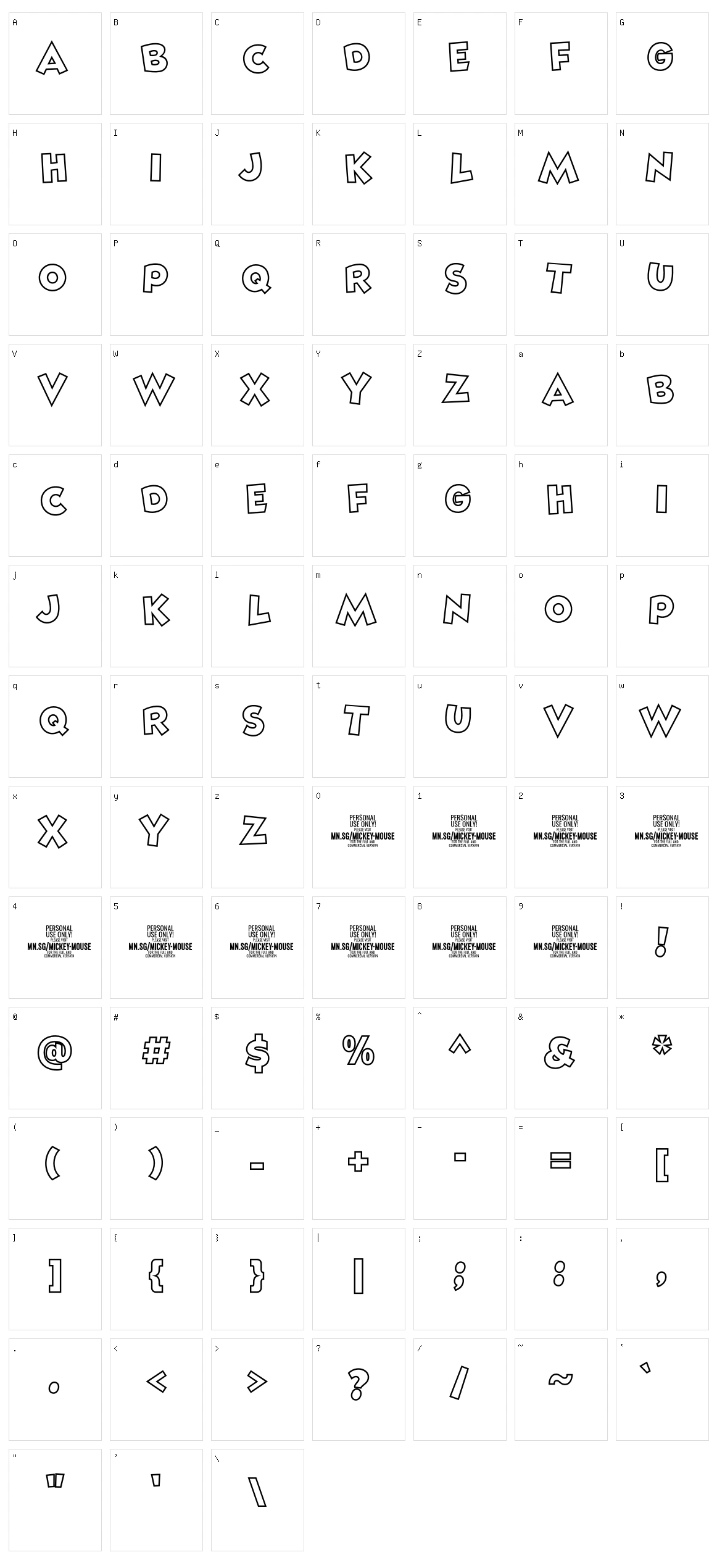
Mickey Mouse is a delightful blend of humor and optimism, designed to capture the essence of classic cartoons.
Make sure to activate contextual alternates in your design software to make the letters overlap!
Mickey Mouse's sans-serif characters are quirky and funny, embodying the unpredictable nature of comic strips and animated adventures. The font's happy vibe is contagious, making it ideal for designs that aim to spread cheer.
The font is built with advanced OpenType functionality and guaranteed top-notch quality, containing stylistic and contextual alternates, ligatures and more automatic and manual features; all to give you full control and customizability.
It has extensive lingual support, covering all Latin-based languages, from North Europa to South Africa, from America to South-East Asia. It contains all characters and symbols you'll ever need, including all punctuation and numbers.
Designed by Mans Greback, the Mickey Mouse font reflects his expertise in creating fonts that are both expressive and inventive. His ability to translate fun and energy into creative typography is evident in this charming typeface.